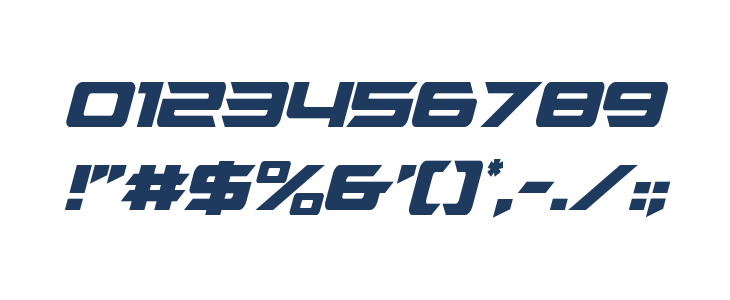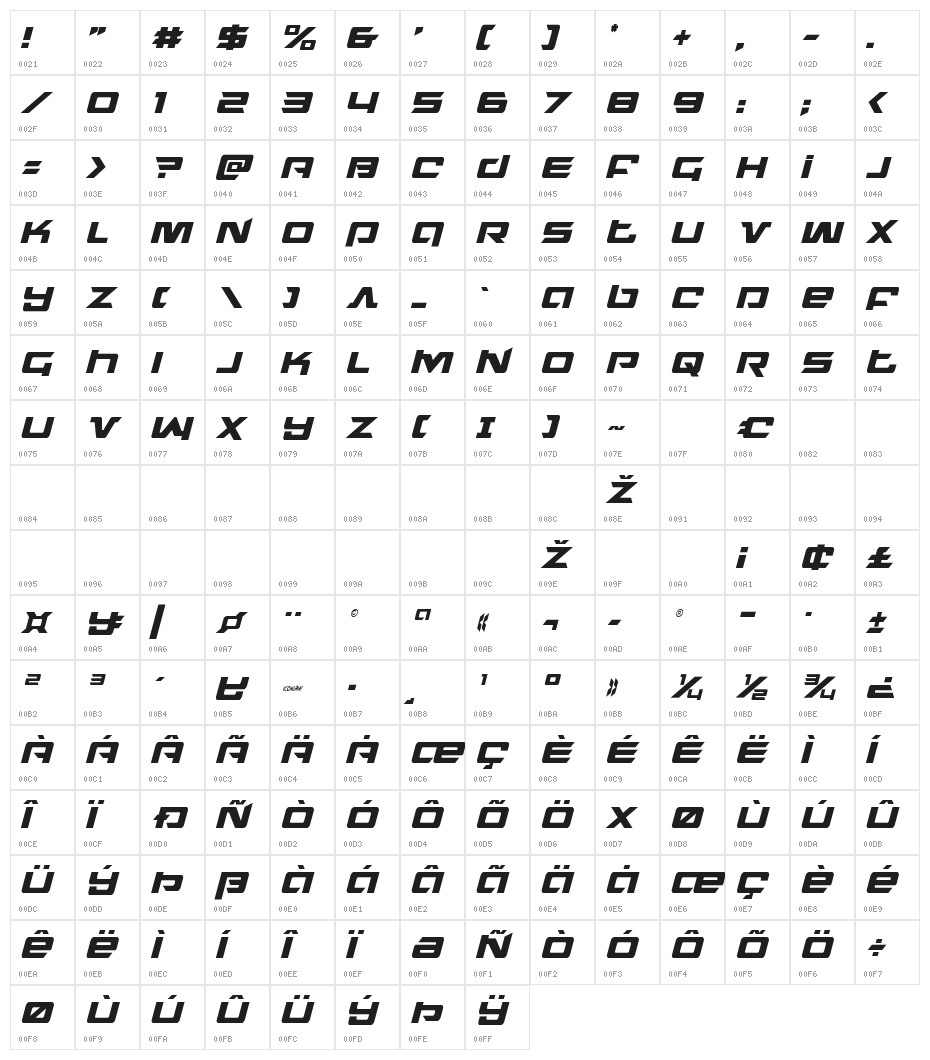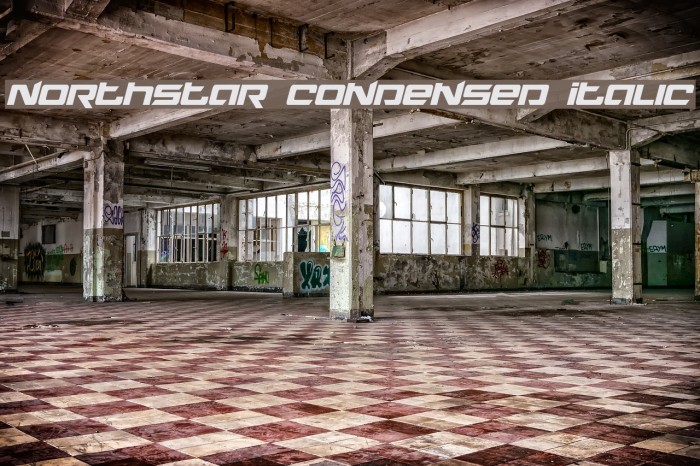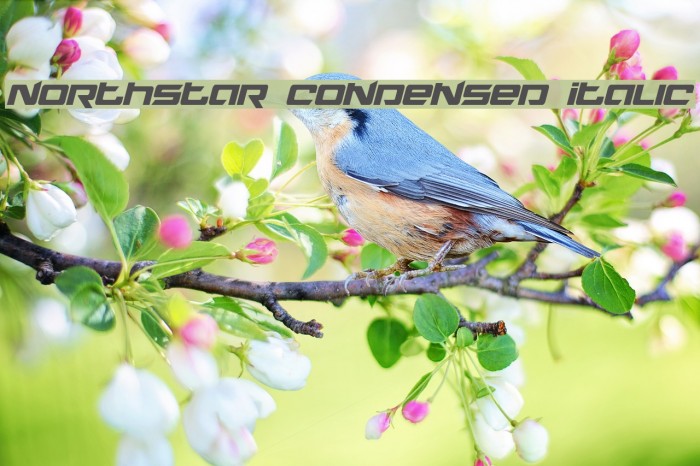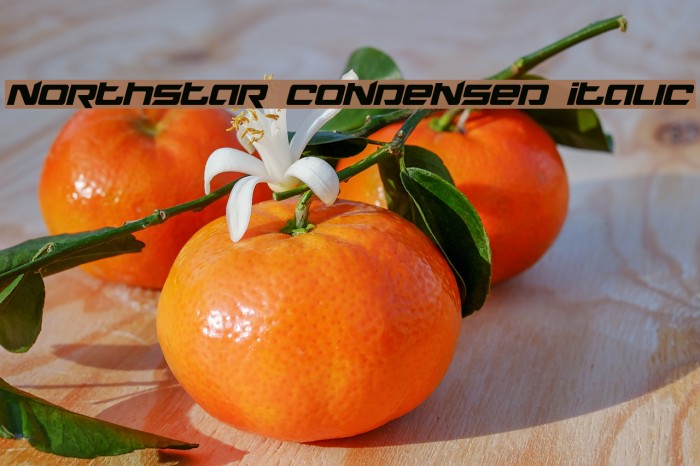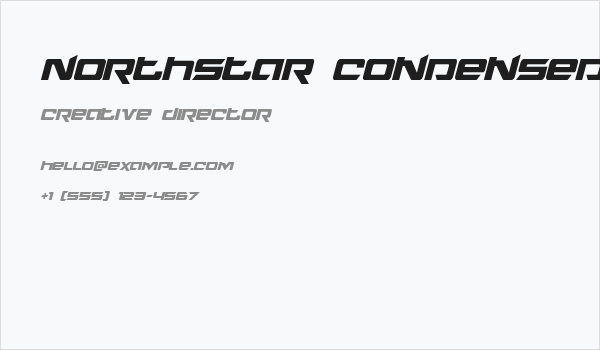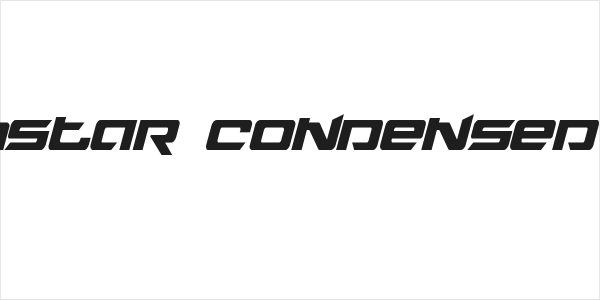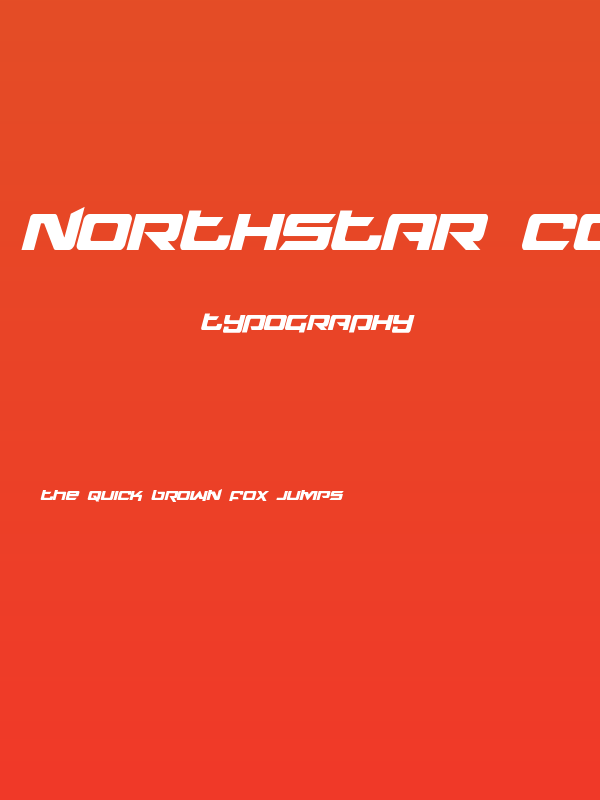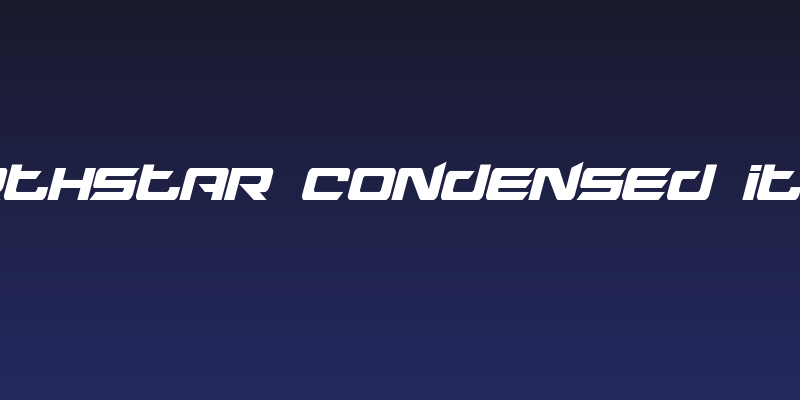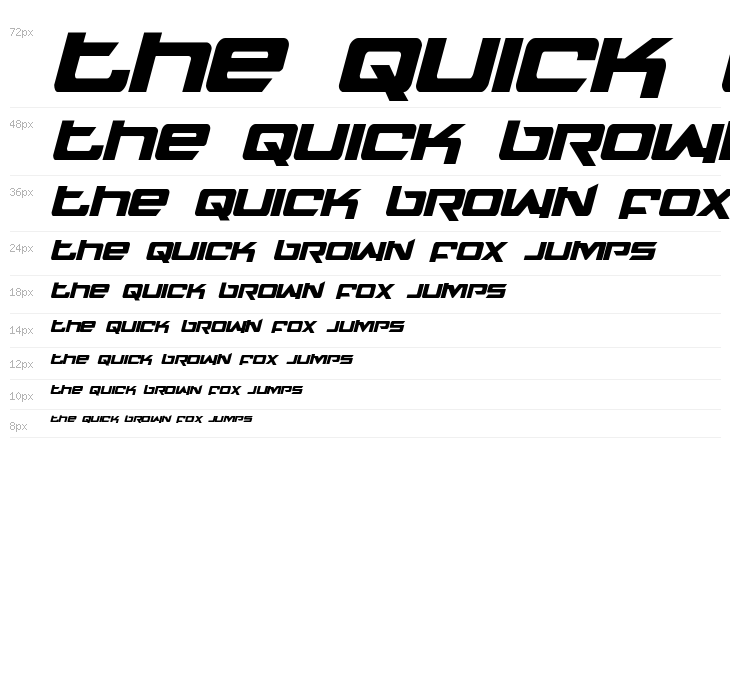
Northstar Condensed Italic Font
Northstar Condensed Italic Description
This font features a futuristic and dynamic design with a condensed and italicized style. The characters are angular and sharp, giving a sense of motion and speed. The uppercase and lowercase letters maintain a consistent slant, enhancing the italic effect. The numerals and special characters follow the same design principles, ensuring uniformity across all glyphs. This font's bold and striking appearance makes it suitable for attention-grabbing applications.
Proposed ProjectsIdeal for sci-fi themed projects, technology branding, video game titles, and dynamic posters.